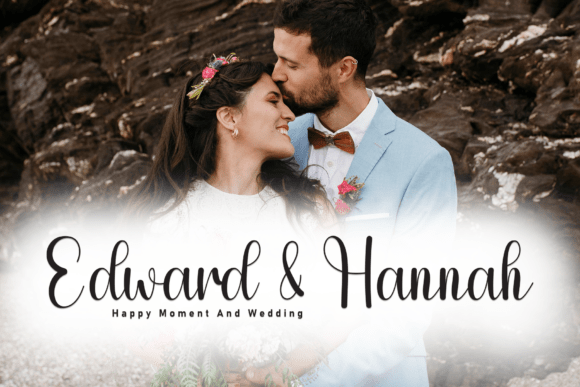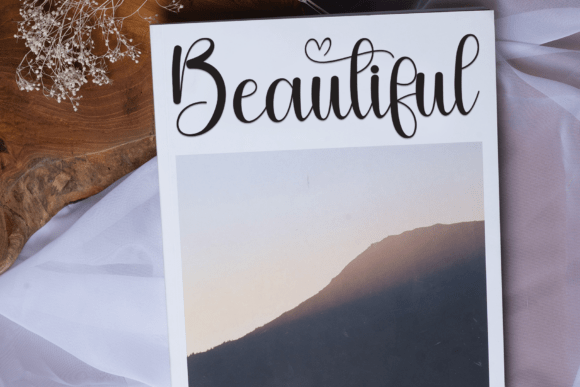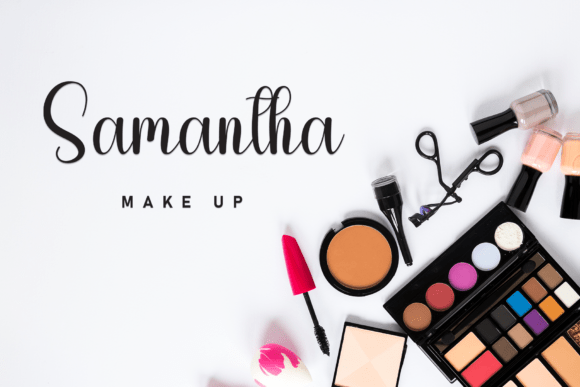
Introduction to Daddy Cutes Font
The mesmerizing allure of this hand-carved typeface lies in its meticulously detailed design, making it a treasure trove of creative potential.
Perfectly suited for luxury wedding invitations, personal correspondence, and any artistic endeavor seeking standout features, this elegant font perfectly embodies refined originality in each expertly fashioned stroke Surrender to the enchanting allure of this exclusive font, a testament to the confluence of elegance and creativity.
Key Features of Daddy Cutes Font
Why Choose Daddy Cutes Font?